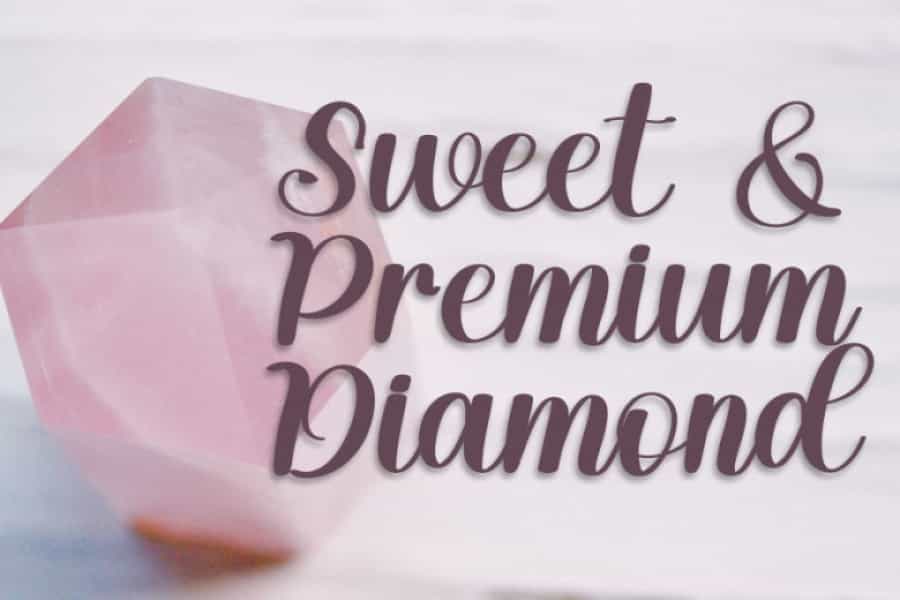
The Bright font is an exquisite calligraphy font. Ideal for greeting cards and headlines, its unique script will bring romance into any design project you undertake.